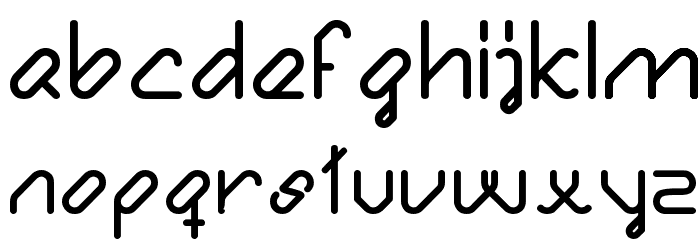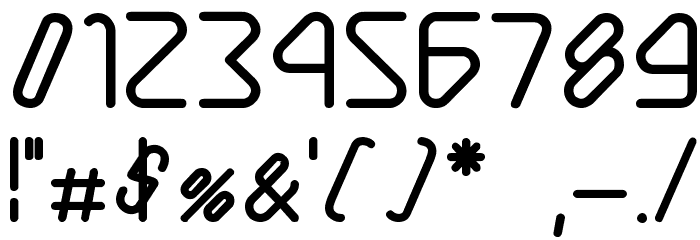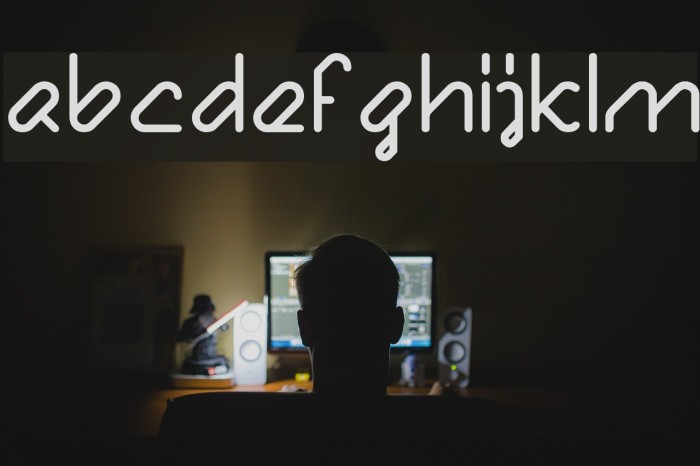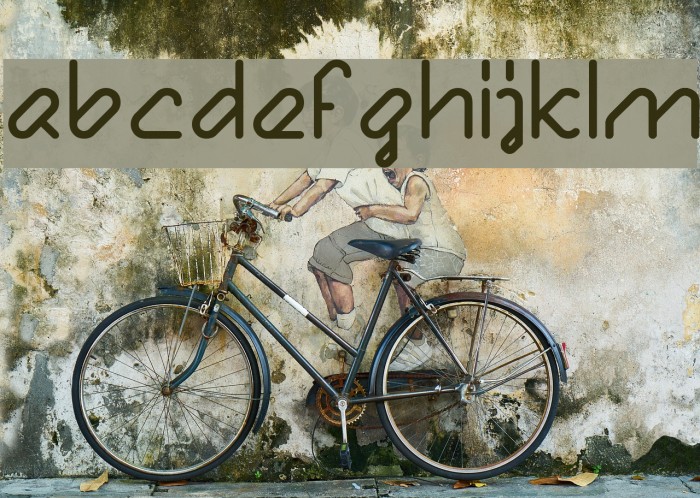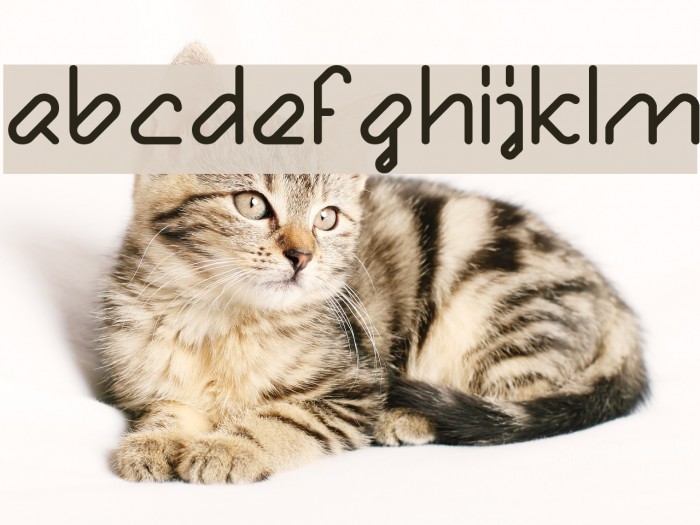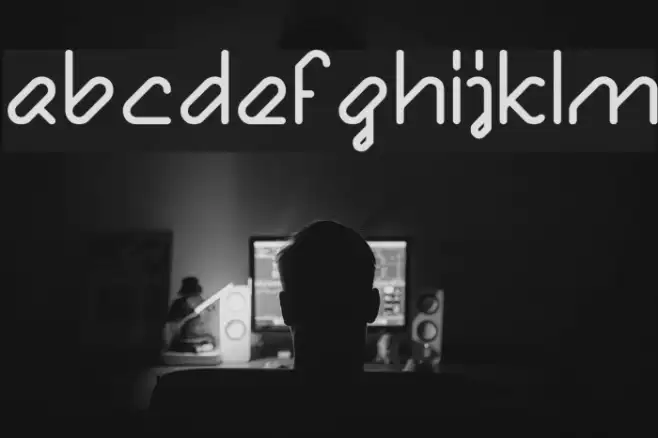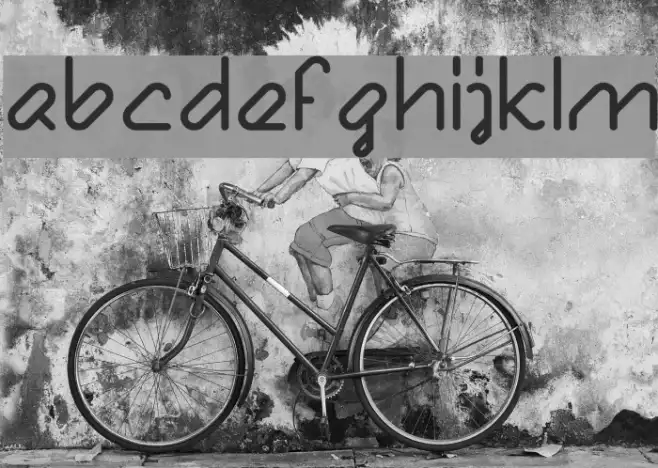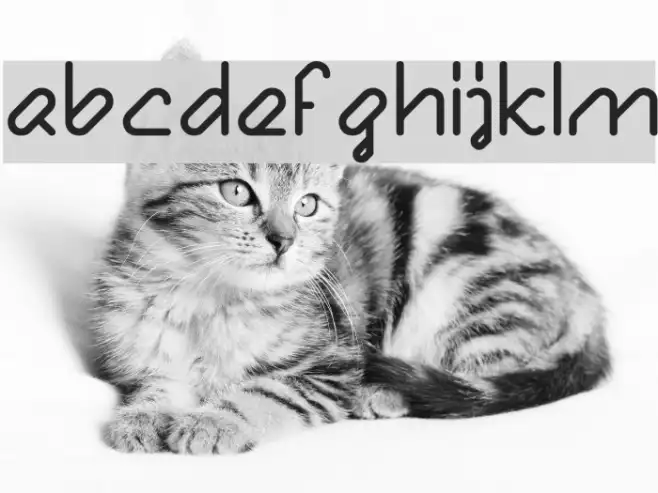
Bule Bold Font
This font features a unique, rounded style with a modern and playful aesthetic. Each character is crafted with smooth, continuous lines that give it a cohesive and flowing appearance. The lowercase letters maintain a consistent height, while the uppercase letters are slightly taller, adding a subtle distinction. Numbers and special characters are designed with the same rounded edges, ensuring uniformity across all elements. The overall look is clean and approachable, making it suitable for a variety of creative applications.
A modern, rounded font with a playful and cohesive style.